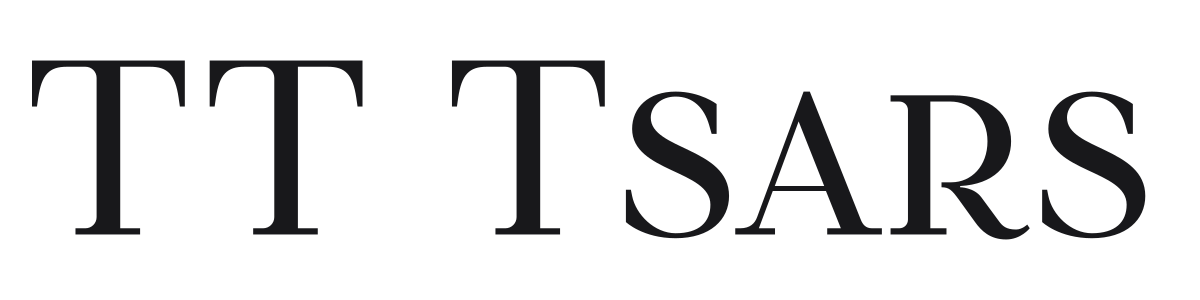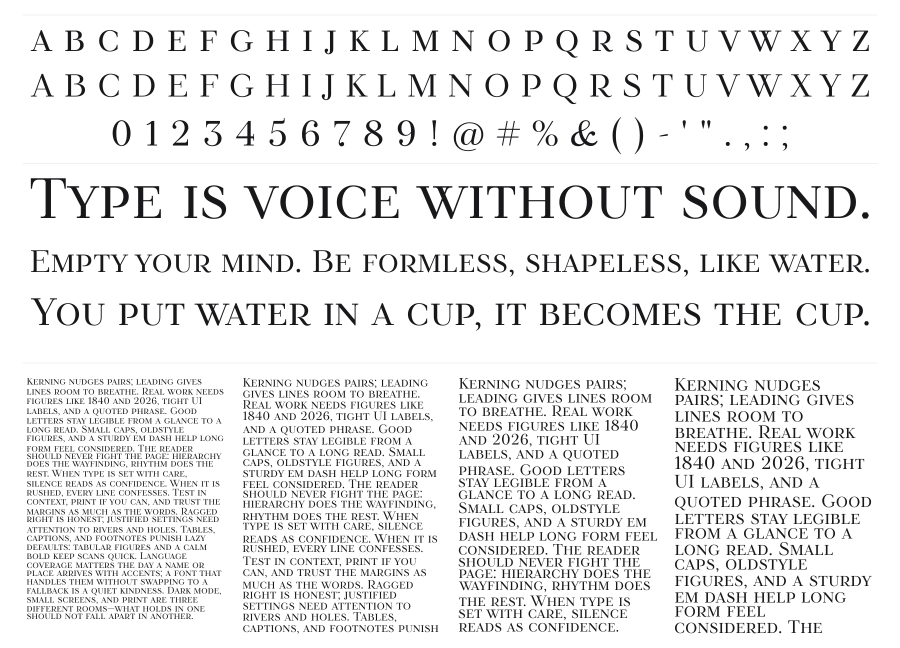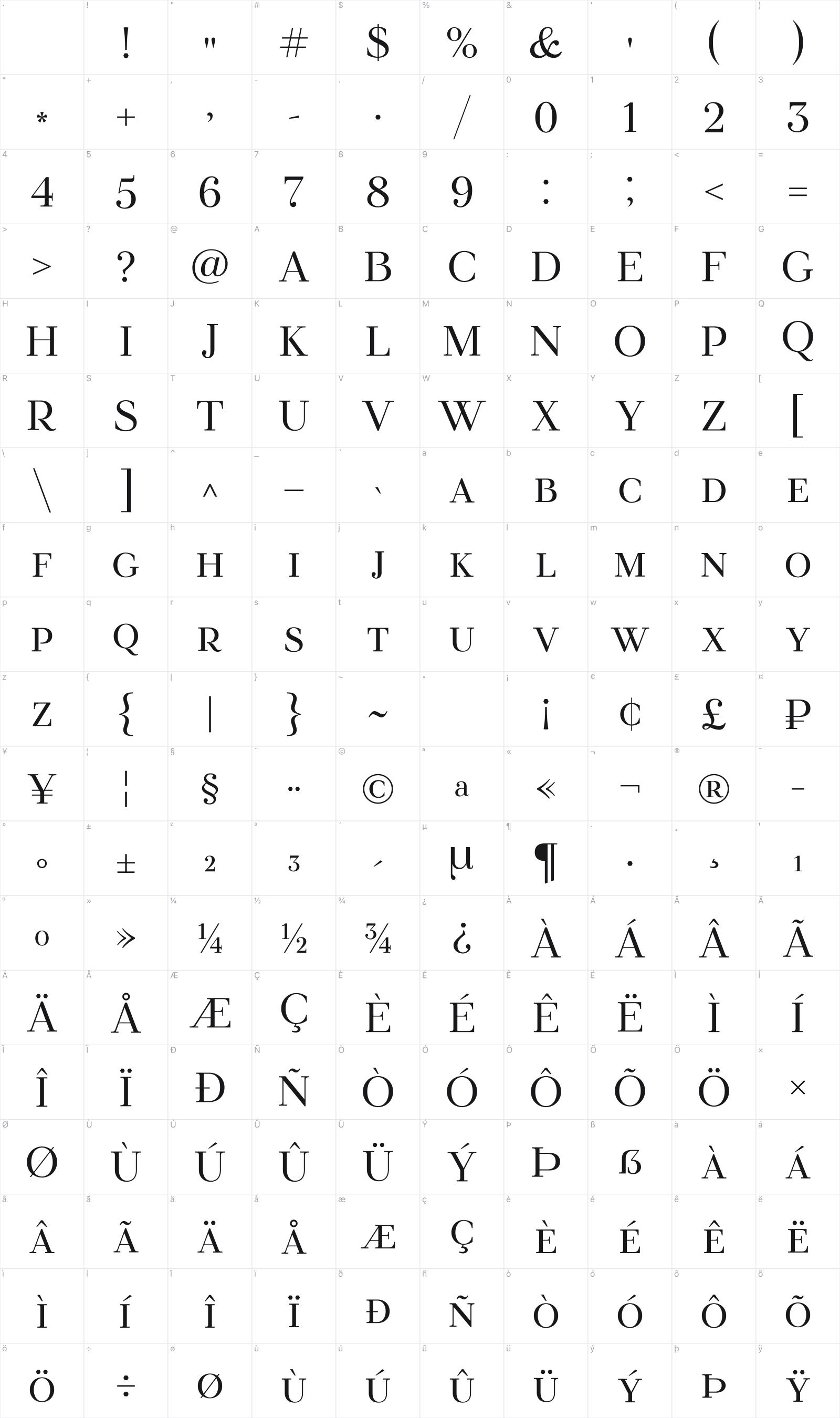
TT Tsars
by TypeType Foundry · Website
TT Tsars is a high-contrast modern serif from TypeType, rooted in the Didone tradition of Bodoni and Didot. Extreme tension between thick stems and hairline serifs gives it a sharp, aristocratic presence suited to large-scale editorial and luxury branding. The wide, open proportions keep it legible and commanding at headline sizes.